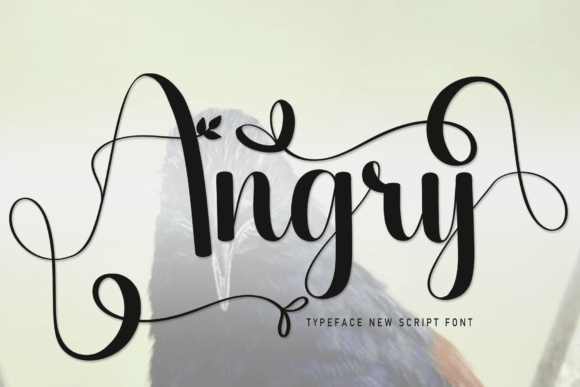
The Angry Font: A Sweet and Cursive Gem for Your Designs
I’ll never forget the time I was working on a wedding invitation project, and my client asked for a font that was both elegant and playful. I scoured the internet, trying out font after font, but nothing seemed quite right. That was until I stumbled upon the Angry font. This sweet and cursive handwritten font has since become a staple in my design toolkit, and I’m excited to share its charm with you! 😊
An Honest Review of Angry Font
• ✨ The elegant, cursive script that adds a touch of sophistication to any design
• ✅ The font’s versatility – it works beautifully for branding, logos, wedding materials, greeting cards, and more
• 💕 The joyful and romantic vibe it brings to projects, perfect for creating an emotional connection with your audience
• 👍 The clean and clear lettering, making it easy to read and understand
While Angry font is an excellent choice for many projects, there are a few things to keep in mind:
• ⚠️ The font may not be the best choice for body text, as it’s designed for display purposes and may be harder to read in large blocks.
• 🤔 Some characters, like the uppercase letters, may appear a bit cramped or altered when used in certain contexts.
The Story Behind Angry Font
Angry font was designed with love and care by a talented typographer who wanted to create a font that would bring joy and elegance to designs. The story goes that the designer was inspired by traditional calligraphy and hand-lettering techniques, aiming to create a font that would feel both modern and timeless.
Q: What type of projects is Angry font best suited for?
A: Angry font is perfect for branding, logos, wedding materials, greeting cards, fashion, lookbooks, marketing promotions, and any project that requires a touch of elegance and playfulness.
Q: Is Angry font available in different styles or variations?
A: While Angry font comes in a single style, its OpenType features and glyphs offer a range of creative possibilities, allowing you to experiment with different looks and feels.